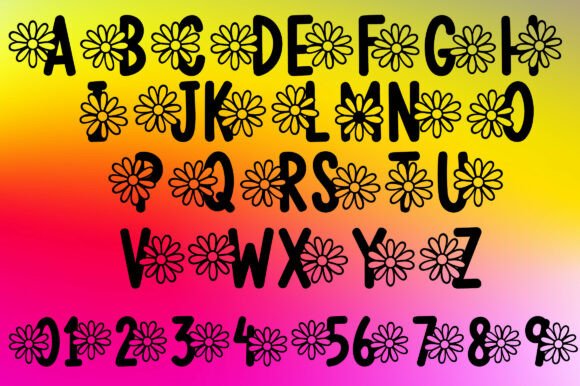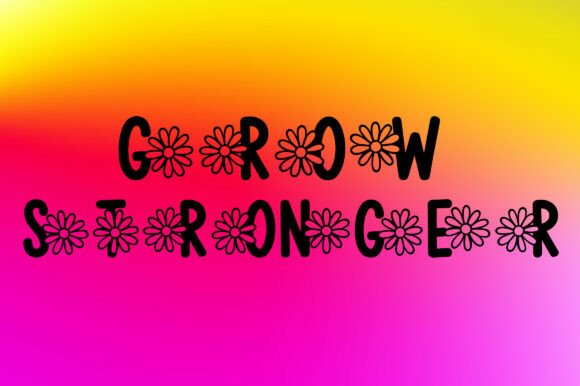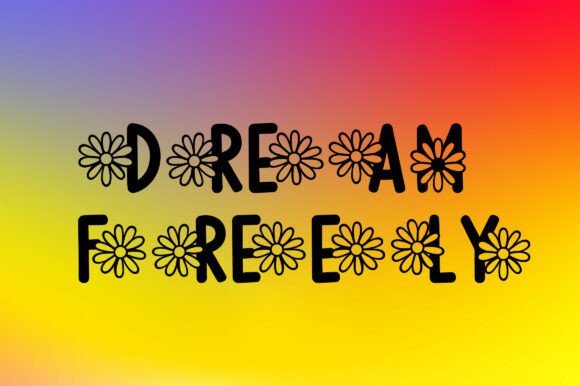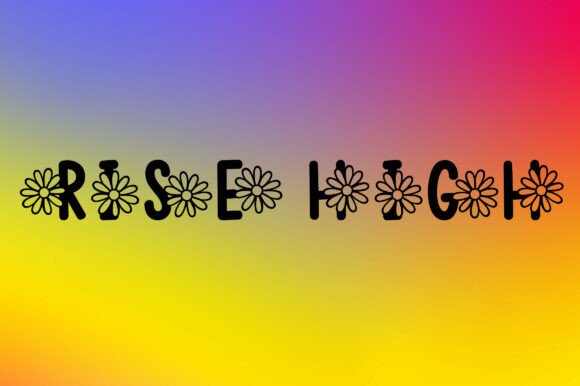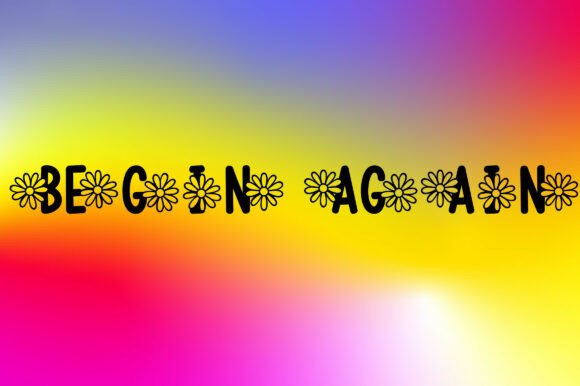
Introducing CHUNCHOM Decorative Flower Fonts: Elevate Your Designs with Elegance and Whimsy
Are you a designer, crafter, or creative enthusiast looking for a unique and captivating font to add a touch of personality to your projects? Look no further than CHUNCHOM Decorative Flower Fonts, a stunning typeface that combines the beauty of floral elements with playful decorative charm. This gorgeous font is perfect for anyone seeking to infuse their designs with freshness, warmth, and style.
The Inspiration Behind CHUNCHOM Font
CHUNCHOM Decorative Flower Fonts draws inspiration from the intricate details and delicate beauty of flowers, bringing a sense of elegance and sophistication to any design. The font’s creative style is characterized by its whimsical and artistic approach, making it an ideal choice for designers and crafters who want to add a touch of personality to their work.
Key Features of CHUNCHOM Font
- Uppercase English letters A-Z and numbers 0-9: CHUNCHOM Font features a comprehensive set of uppercase English letters and numbers, providing you with endless opportunities to express your creativity.
- Elegant and creative style: The font’s elegant and creative style adds a touch of sophistication and whimsy to any design, making it perfect for a wide range of projects.
- Freshness and warmth: CHUNCHOM Font brings a sense of freshness and warmth to any design, making it ideal for projects that require a personal touch.
CHUNCHOM Decorative Flower Fonts is a versatile typeface that can be used for a wide range of projects, including:
- Logos and branding: Create a lasting impression with a unique and memorable logo that showcases your brand’s personality.
- Invitations and posters: Add a touch of elegance and sophistication to your invitations and posters with CHUNCHOM Font.
- Packaging: Make your products stand out with beautiful and eye-catching packaging that features CHUNCHOM Font.
- Social media graphics: Elevate your social media presence with stunning graphics that showcase your creativity and style.
Endless Opportunities for Creativity
CHUNCHOM Decorative Flower Fonts offers endless opportunities for creativity and self-expression. With its elegant and creative style, you can:
- Experiment with different design styles: CHUNCHOM Font can be used in a variety of design styles, from modern and minimalist to vintage and whimsical.
- Add a personal touch: The font’s freshness and warmth make it perfect for projects that require a personal touch, such as wedding invitations and baby shower announcements.
- Combine with other design elements: CHUNCHOM Font can be paired with other design elements, such as illustrations and graphics, to create stunning and unique designs.
CHUNCHOM Decorative Flower Fonts is a beautiful and artistic typeface that can elevate any design with its elegance, creativity, and whimsy. With its comprehensive set of uppercase English letters and numbers, this font offers endless opportunities for self-expression and creativity. Whether you’re a designer, crafter, or creative enthusiast, CHUNCHOM Font is the perfect choice for anyone looking to add a touch of personality and style to their projects.